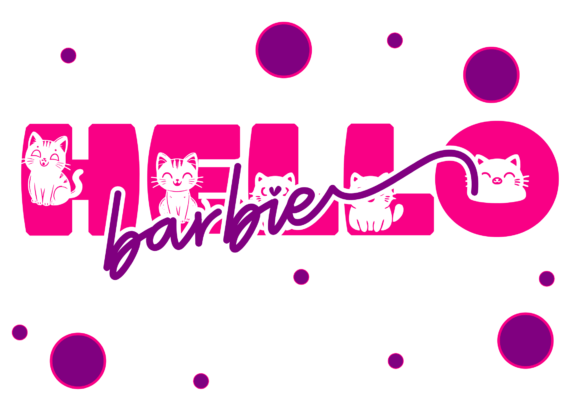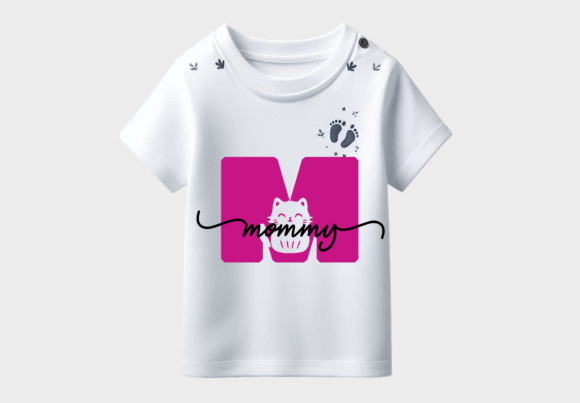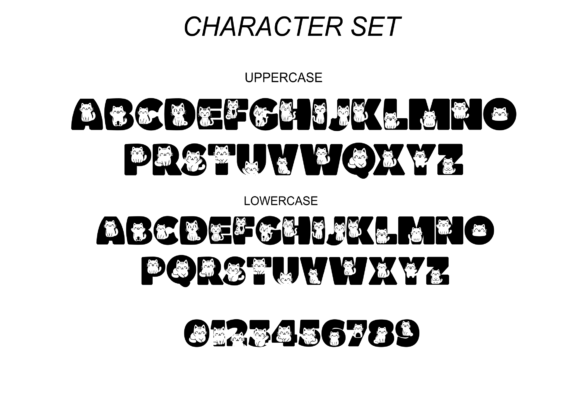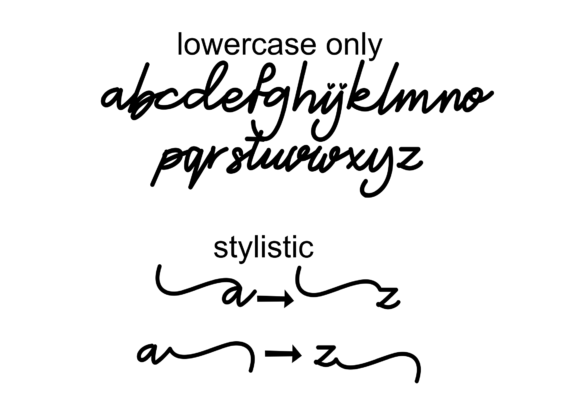
The Perfect Typographic Companion for Design Enthusiasts
Have you ever stared at a blank page, waiting for inspiration to strike? The cursor blinks impatiently, but your creative juices are stuck in neutral. Suddenly, a furry friend jumps onto your lap, purring contentedly as you scratch behind their ears. In that moment, the world slows down, and ideas start to flow. It’s in these quiet, whimsical moments that we find our best work.
Introducing the Cat Lover Font, a typographic duo that captures the essence of this creative serendipity. This charming font pair is designed to add a touch of warmth and personality to your designs, making it the perfect companion for any creative project. Whether you’re a seasoned designer or a hobbyist, the Cat Lover Font is sure to bring a refreshing flair to your work.
Cat Lover Font Key Features
- Font Family: A unique, hand-drawn script font designed specifically for cat lovers, featuring whimsical cat silhouettes and playful details.
- Character Set: Includes a wide range of characters, including uppercase and lowercase letters, numbers, punctuation marks, and special characters, as well as cat-themed icons and symbols.
- Unique Characteristics: Features intricate cat silhouettes, paw prints, and other feline-inspired details throughout the font, making it perfect for cat-themed designs and branding.
Designer Review: Cat Lover Font
Overall, I have mixed feelings about the “Cat Lover Font”. On the one hand, I think it’s a fun and playful font that cat enthusiasts will love. ✨ The font’s quirky cat-inspired designs add a touch of whimsy to any text, making it perfect for social media posts, cat-themed merchandise, or even a cat cafe’s branding.
Here are some things that work well about this font:
- ✨ Unique and playful design elements that make it stand out from other fonts.
- ✨ Well-suited for cat-themed projects, making it a great choice for designers who specialize in pet-related designs.
- ✨ Comes in a variety of styles and weights, giving designers flexibility when using it in different contexts.
However, I do have some concerns about the font’s limitations:
- ⚠️ May not be suitable for formal or professional projects, as it can come across as too playful or childish.
- ⚠️ Limited compatibility with certain operating systems or software, which can cause display issues.
- ⚠️ Some users may find the font’s quirky design elements distracting or overwhelming.
In conclusion, the “Cat Lover Font” is a fun and creative option for designers who specialize in cat-themed projects. However, it may not be the best choice for formal or professional designs, and users should be aware of its limitations before using it.
Tips for Getting the Most Out of Cat Lover Font
Use Cat Lover Font to add a playful and whimsical touch to your designs. It’s perfect for cat-themed projects, such as cat calendars, cat mugs, or cat-themed websites.
Experiment with different font sizes and colors to create a unique look. You can also pair it with other fonts to create a visually appealing combination.
Cat Lover Font is perfect for:
- Cat-themed projects
- Playful and whimsical designs